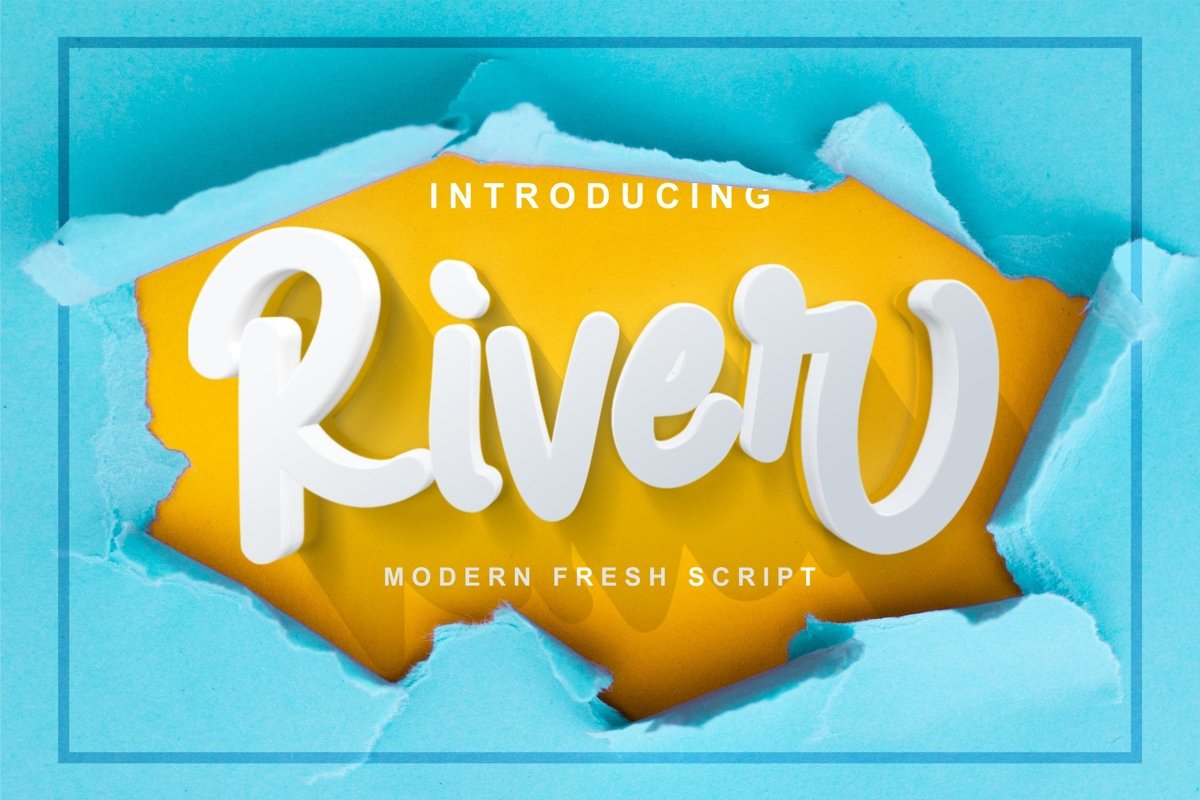
River - Modern Fresh Script
River Font
River - Modern Fresh Script
So beautiful on invitation like greeting cards, branding materials, business cards, quotes, posters, and more!
• Alternates and Ligatures